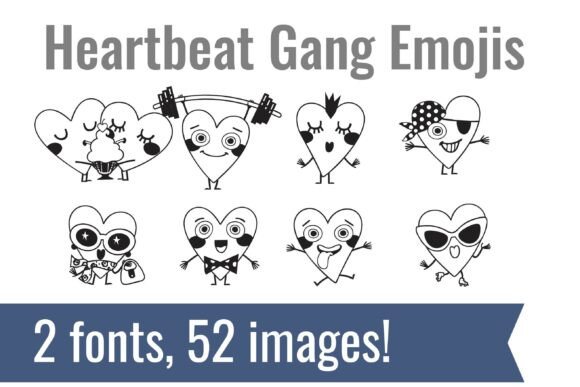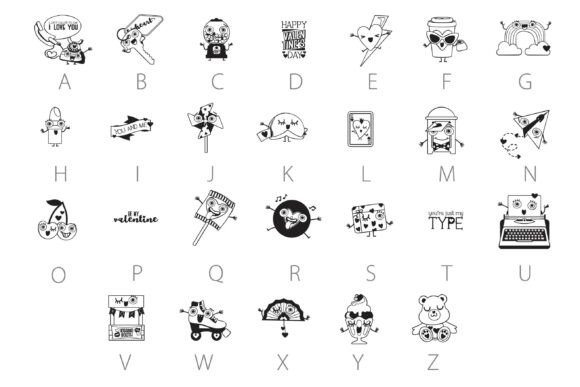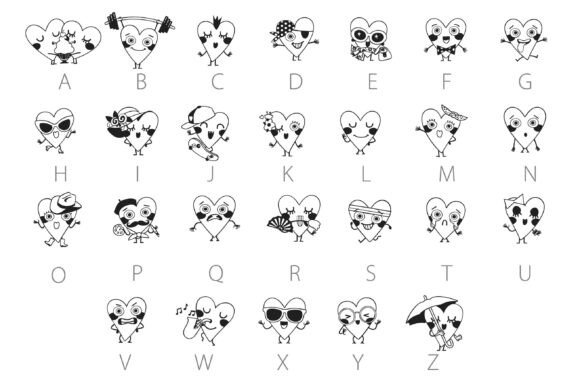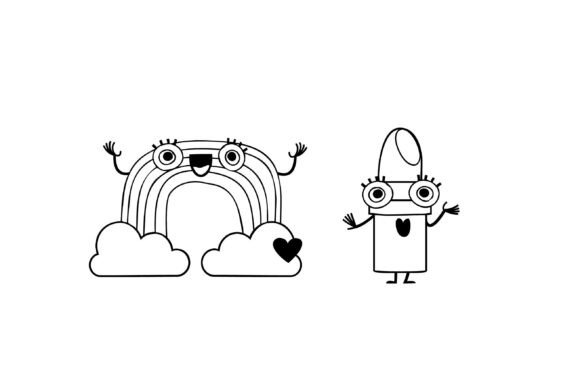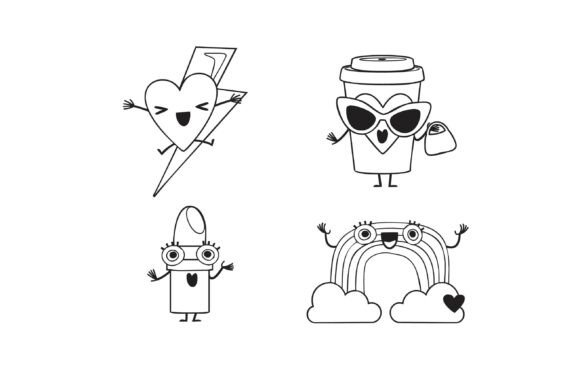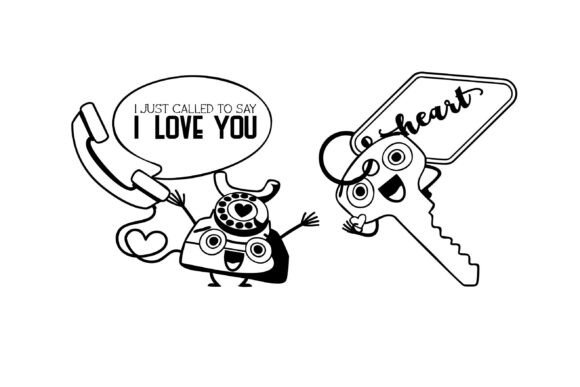
Unlock Endless Creativity with Heartbeat Gang Font: The Ultimate Dingbat Font Bundle
Are you tired of spending hours searching for the perfect icons and graphics for your designs? Look no further! The Heartbeat Gang Font bundle is here to revolutionize your creative process with two perfectly coordinated dingbat fonts, featuring the cutest, heart-centric images and emojis. This comprehensive font bundle is a game-changer for designers, crafters, and DIY enthusiasts, providing a cost-effective way to access a vast library of high-quality graphics.
What is a Dingbat Font?
For those who may be new to dingbat fonts, let’s take a quick look at what they are and how they work. A dingbat font is a type of font that features graphical symbols, icons, or images instead of traditional letters and characters. When you type a letter or a symbol, a corresponding image appears, allowing you to create stunning designs with ease. Dingbat fonts are incredibly versatile and can be used for a wide range of projects, from paper crafts and planners to vinyl cutting and invitations.
The Heartbeat Gang Font Bundle: A Treasure Trove of Heart-Centric Designs
The Heartbeat Gang Font bundle consists of two carefully crafted dingbat fonts, each featuring a unique set of heart-centric images and emojis. With these fonts, you’ll have access to dozens of cohesive, scalable designs that can be used to create everything from charming seasonal icons for holiday cards to intricate frames for your invitations. Whether you’re a professional designer or a DIY enthusiast, this font bundle is sure to inspire your creativity and take your designs to the next level.
- A complete set of high-quality graphics, all designed to work beautifully together
- Instant access to the designs directly from your cutting or design software
- The ability to cut, sketch, and print the designs with ease
- A cost-effective way to build your creative asset library without buying individual clip art files
The Heartbeat Gang Font bundle offers endless creative possibilities for designers, crafters, and DIY enthusiasts. Here are just a few ideas to get you started:
- Paper crafts: Create stunning paper flowers, cards, and gift tags with ease
- Vinyl cutting: Cut out intricate designs and shapes for signs, decals, and more
- Planners and journals: Add custom illustrations and icons to your planners and journals
- Invitations and greeting cards: Create beautiful, one-of-a-kind invitations and greeting cards
- Seasonal decorations: Design charming seasonal icons and decorations for holiday cards and gifts
Why Choose the Heartbeat Gang Font Bundle?
So why choose the Heartbeat Gang Font bundle over other dingbat font bundles on the market? Here are just a few reasons:
- High-quality graphics: Our fonts feature high-quality, scalable designs that will look great on any project
- Cohesive designs: Our fonts are carefully crafted to work beautifully together, ensuring a consistent look and feel across all your designs
- Cost-effective: Our font bundle is a cost-effective way to access a vast library of graphics without breaking the bank
- Easy to use: Our fonts are easy to install and use, with instant access to the designs directly from your cutting or design software
In conclusion, the Heartbeat Gang Font bundle is a must-have for designers, crafters, and DIY enthusiasts looking to unlock endless creativity and take their designs to the next level. With two perfectly coordinated dingbat fonts, featuring the cutest, heart-centric images and emojis, this font bundle offers a cost-effective way to access a vast library of high-quality graphics. Whether you’re creating paper crafts, vinyl cutting, or designing invitations, the Heartbeat Gang Font bundle is sure to inspire your creativity and help you achieve professional-looking results.